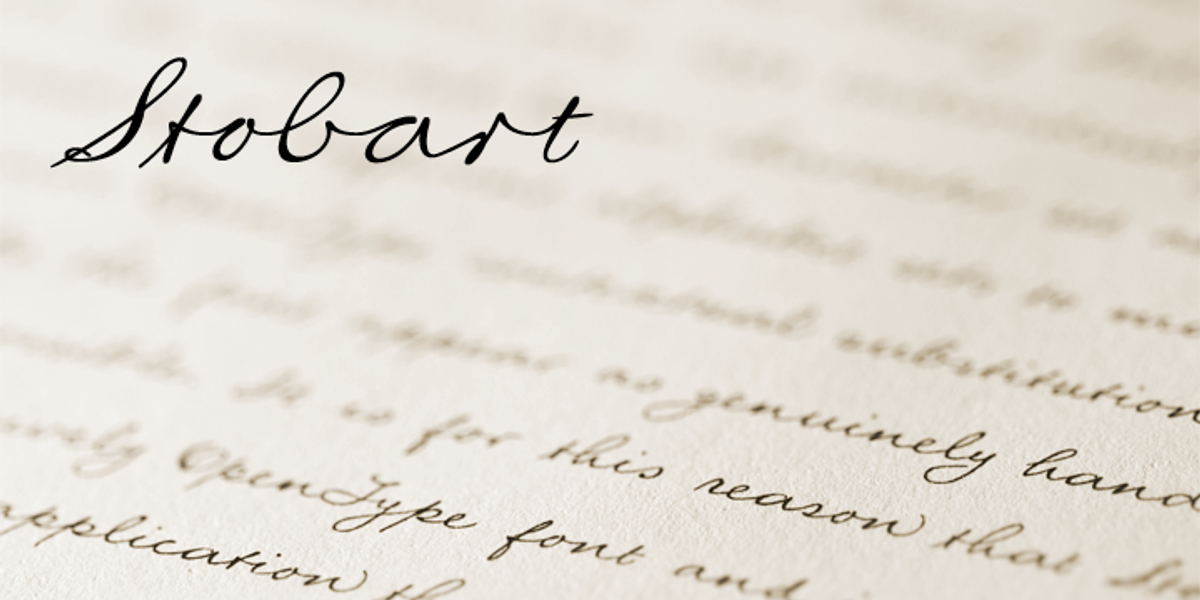
Stobart
Stobart is a formal script font meticulously designed to mimic handwriting from a letter dated 1899. Its extensive OpenType features allow for contextual substitutions that create a truly authentic handwritten appearance. While it will function in any application supporting the OpenType format, its full potential is realized in applications with advanced OpenType support.